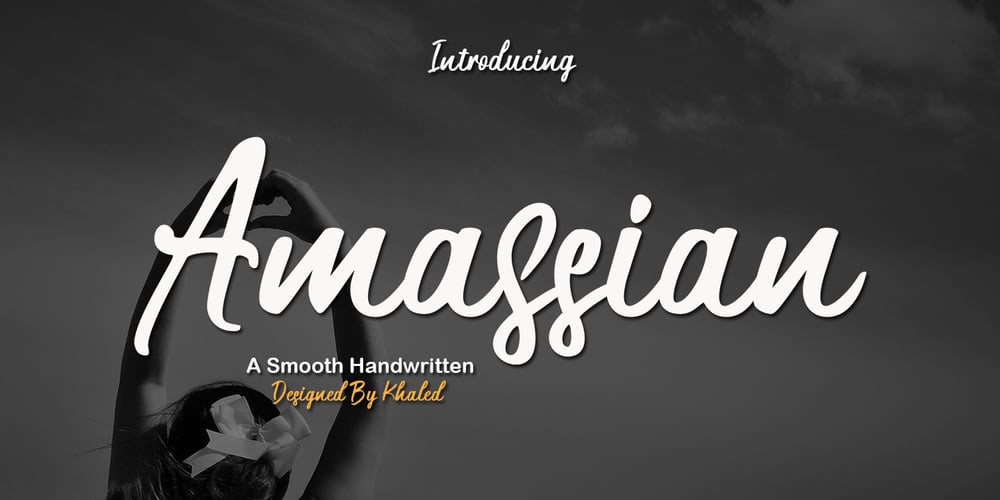
Amassian Font Family was designed by Khaled and published by Akifatype. Amassian contains 1 styles and family package options. Amassian is a modern smooth brush and natural handwritten font, organic, dynamic and energetic sytle.Can used for various purposes. such as the title, signature, logo, correspondence, wedding invitations, letterhead, signage, labels, newsletters, posters, badges, etc.